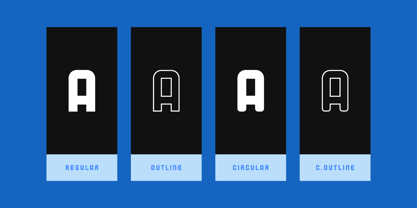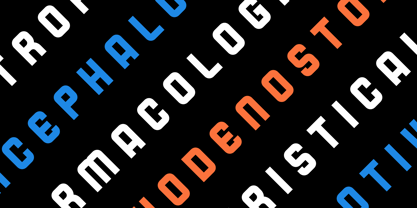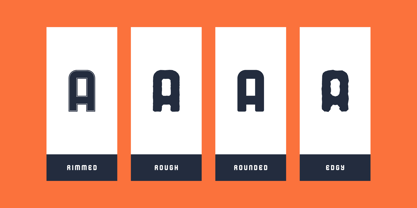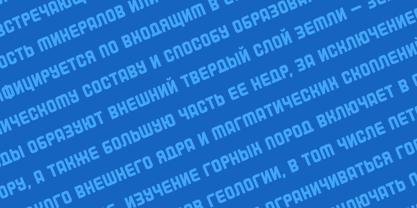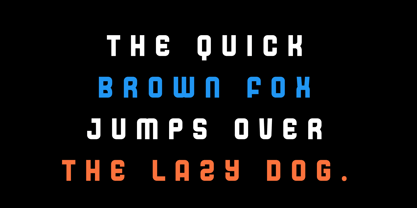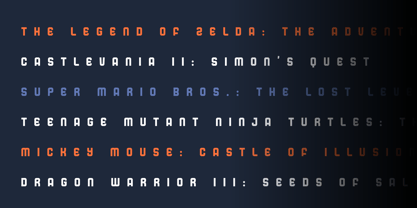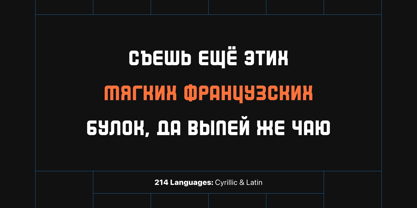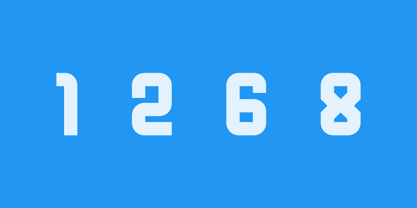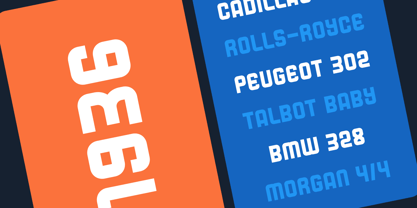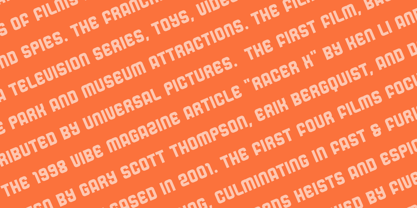
Blanco
by AlperCakici
The Blanco Font Family was designed by Alper Çakıcı and published by AlperCakici. Blanco contains 1 styles.
Blanco - A Display Font : Blanco is a carefully crafted display font. It has Extended Latin and Cyrillic characters. It created for poster, web, brand and social media designs.